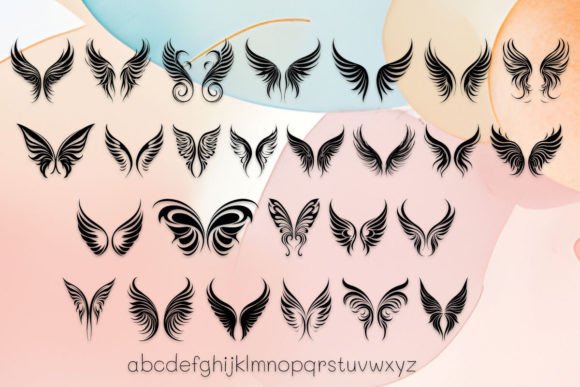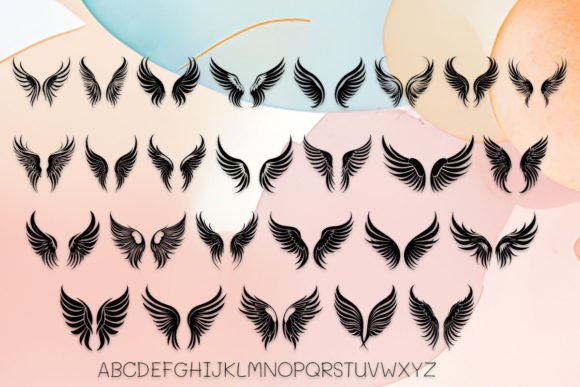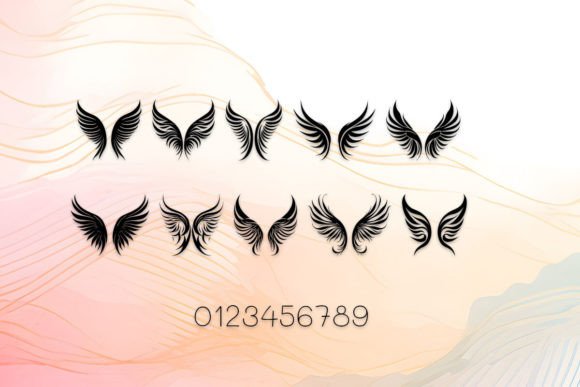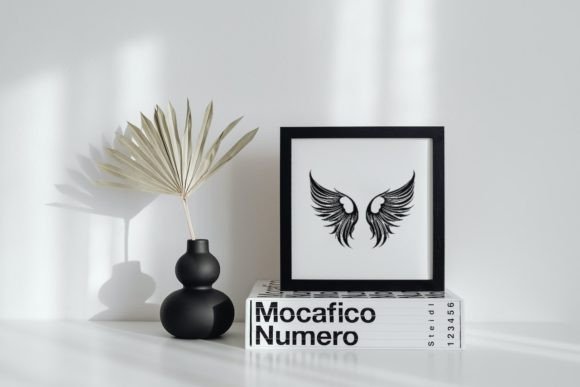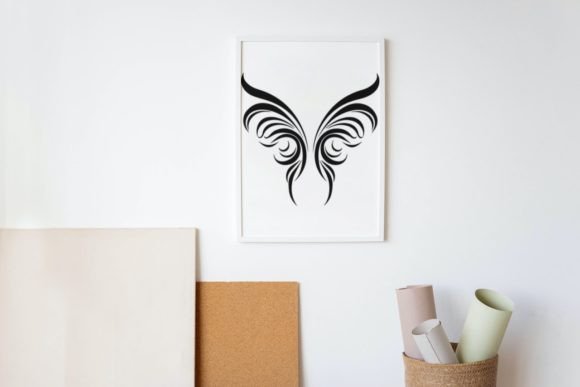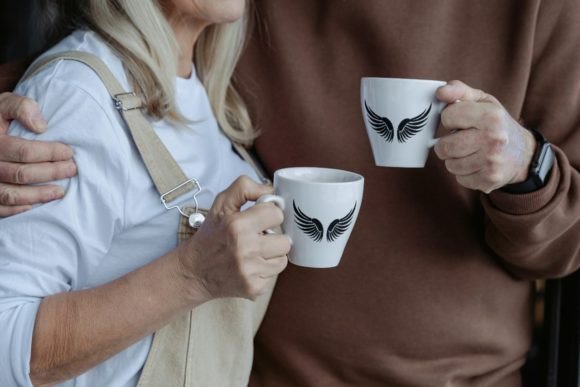
Introducing the Enchanting Fairies Wing Font
Are you a designer or crafter looking for a unique and captivating font to add a touch of magic to your projects? Look no further than the Fairies Wing Font, a delightful dingbats font that is sure to enchant and inspire. In this article, we’ll take a closer look at the Fairies Wing Font, its features, and how it can elevate your designs to new heights.
What is Fairies Wing Font?
The Fairies Wing Font is a charming dingbats font that offers a set of 62 characters, including 26 uppercase letters, 26 lowercase letters, and numbers 0-9. This font is carefully crafted to incorporate whimsical and ethereal elements, featuring intricate winged motifs inspired by fairies. The result is a blend of fanciful typography and mystical imagery that creates captivating and unique visuals.
Key Features of Fairies Wing Font
- 62 characters: The Fairies Wing Font includes 26 uppercase letters, 26 lowercase letters, and numbers 0-9, providing a wide range of options for your designs.
- Intricate winged motifs: The font features delicate and intricate winged motifs inspired by fairies, adding a touch of magic and wonder to your projects.
- Whimsical and ethereal: The Fairies Wing Font has a distinctly whimsical and ethereal feel, making it perfect for designs that require a touch of fantasy and enchantment.
Why Choose Fairies Wing Font?
So, why should you choose the Fairies Wing Font for your next project? Here are just a few reasons:
- Unique and distinctive: The Fairies Wing Font is unlike any other font on the market, offering a truly unique and distinctive look that will set your designs apart.
- Engaging and captivating: The font’s whimsical and ethereal elements are sure to engage and captivate your customers, drawing them in and holding their attention.
- Versatile: The Fairies Wing Font can be used in a wide range of projects, from stationery and greeting cards to websites and social media graphics.
Using Fairies Wing Font in Your Designs
Using the Fairies Wing Font in your designs is easy and straightforward. Here are a few tips to get you started:
- Pair with complementary fonts: Pair the Fairies Wing Font with complementary fonts to create a visually appealing and harmonious design.
- Experiment with colors: Experiment with different colors and textures to add depth and interest to your designs.
- Use in digital and print projects: The Fairies Wing Font can be used in both digital and print projects, making it a versatile addition to your design toolkit.
The Fairies Wing Font is perfect for designers and crafters who are looking for a unique and captivating font to add a touch of magic to their projects. Whether you’re creating stationery, greeting cards, or websites, this font is sure to inspire and delight.
In conclusion, the Fairies Wing Font is a charming and captivating dingbats font that is sure to enchant and inspire designers and crafters. With its intricate winged motifs, whimsical and ethereal elements, and versatile design, this font is perfect for anyone looking to add a touch of magic to their projects. So why wait? Download the Fairies Wing Font today and start creating your own enchanting designs!